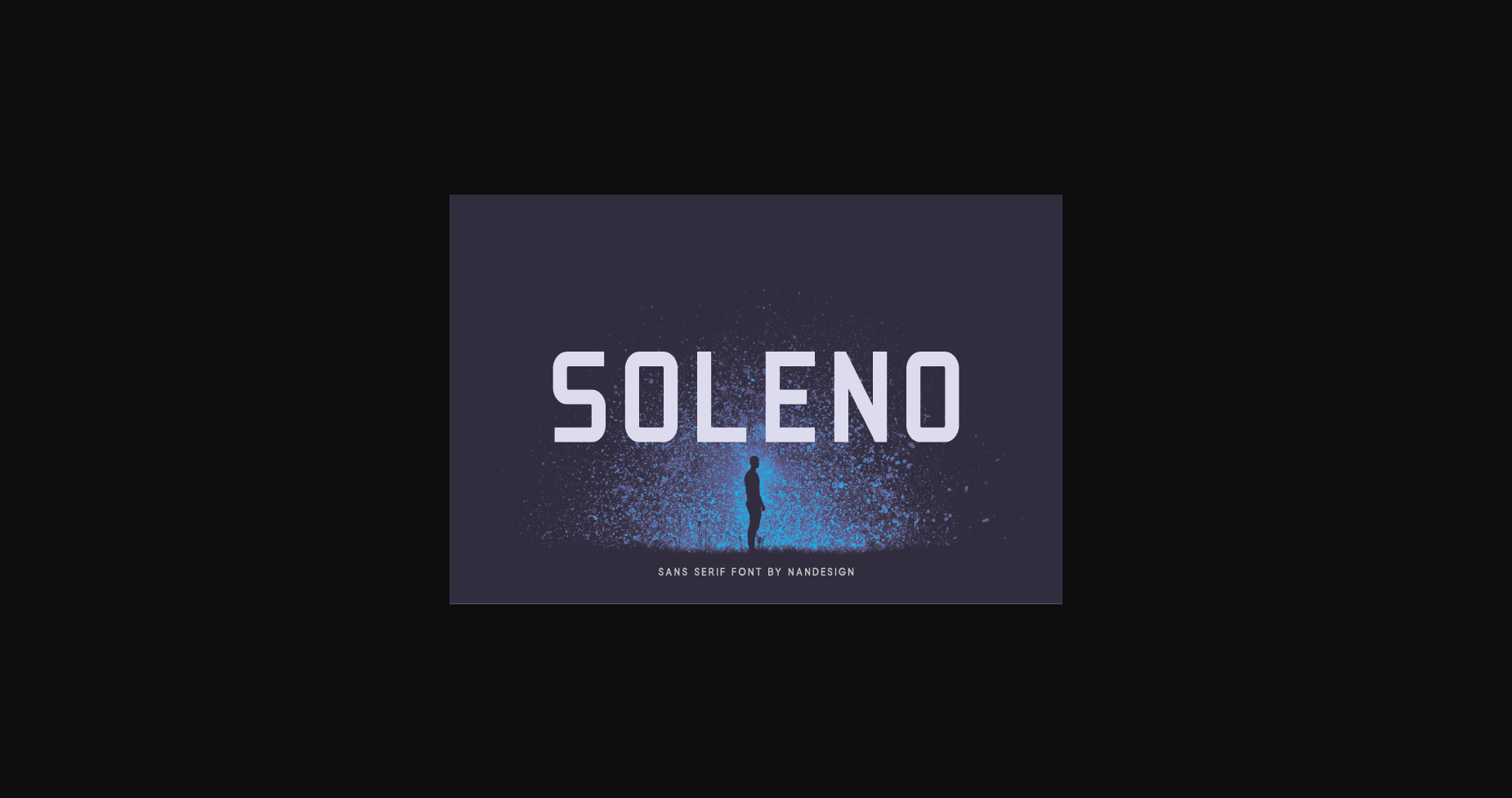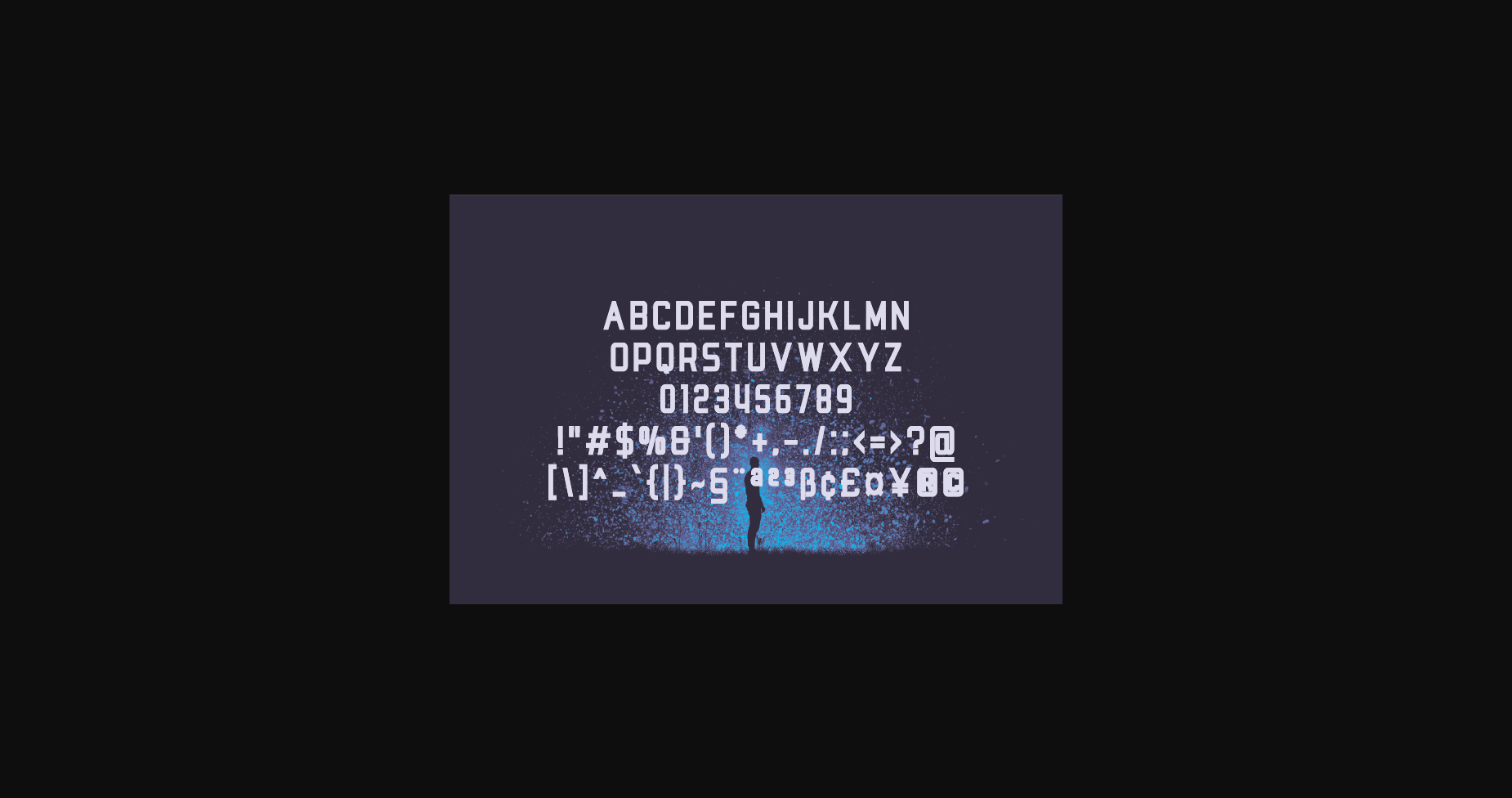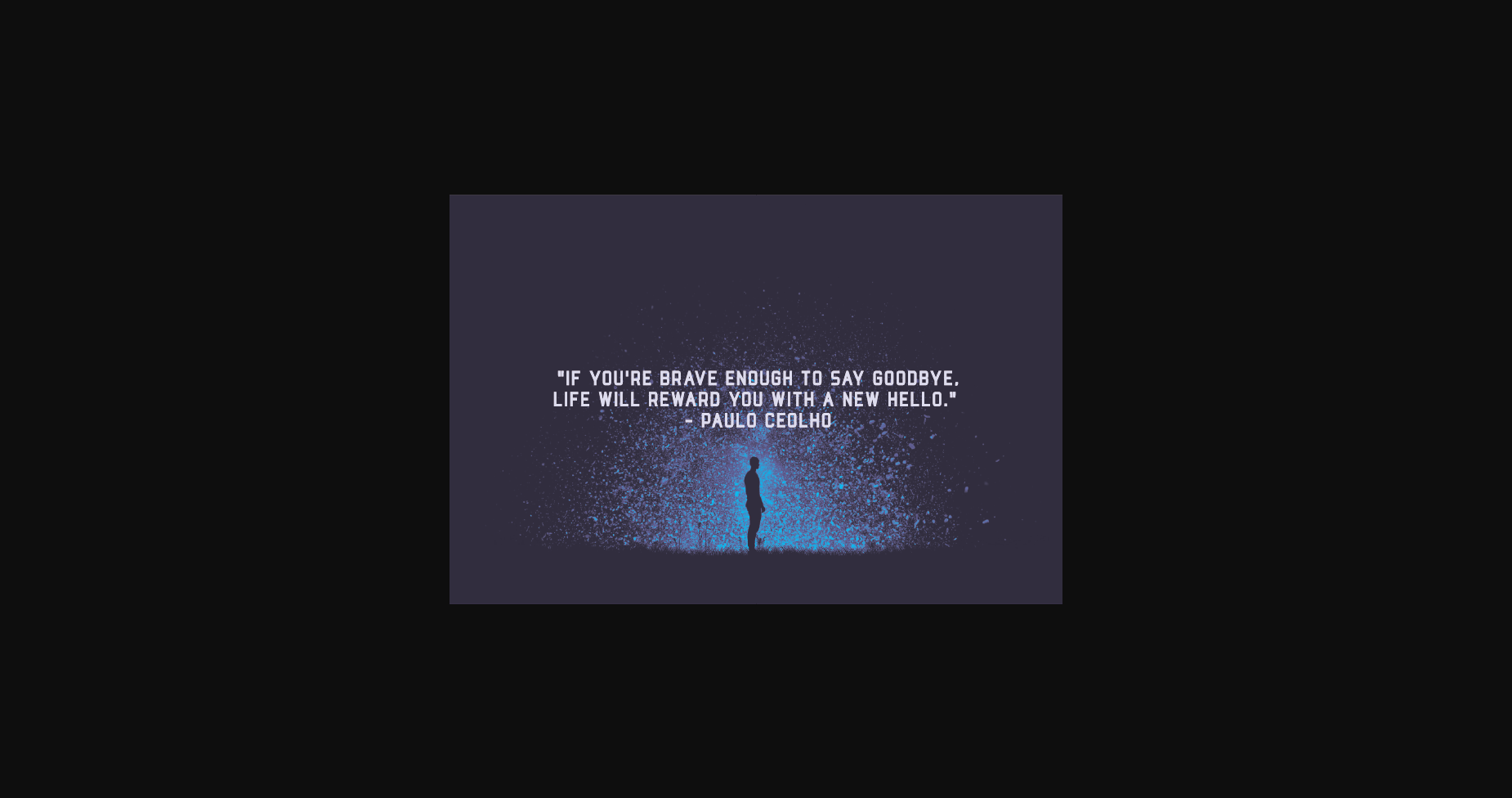
About Soleno Font
Soleno is a minimal, yet elegant sans serif font. Suitable to a wide variety of designs due to its neat and simple style, this font has the potential to become your favorite go-to font, no matter the occasion!